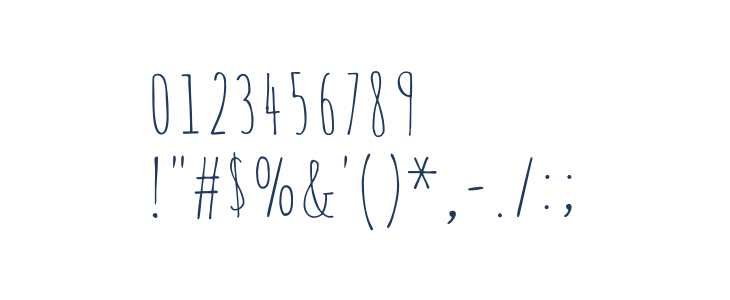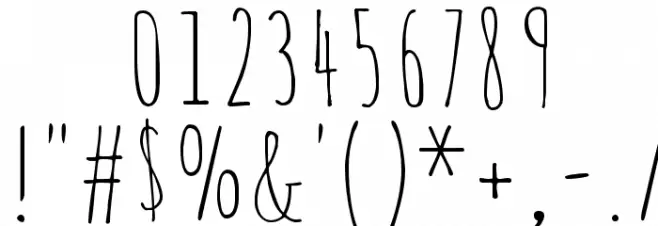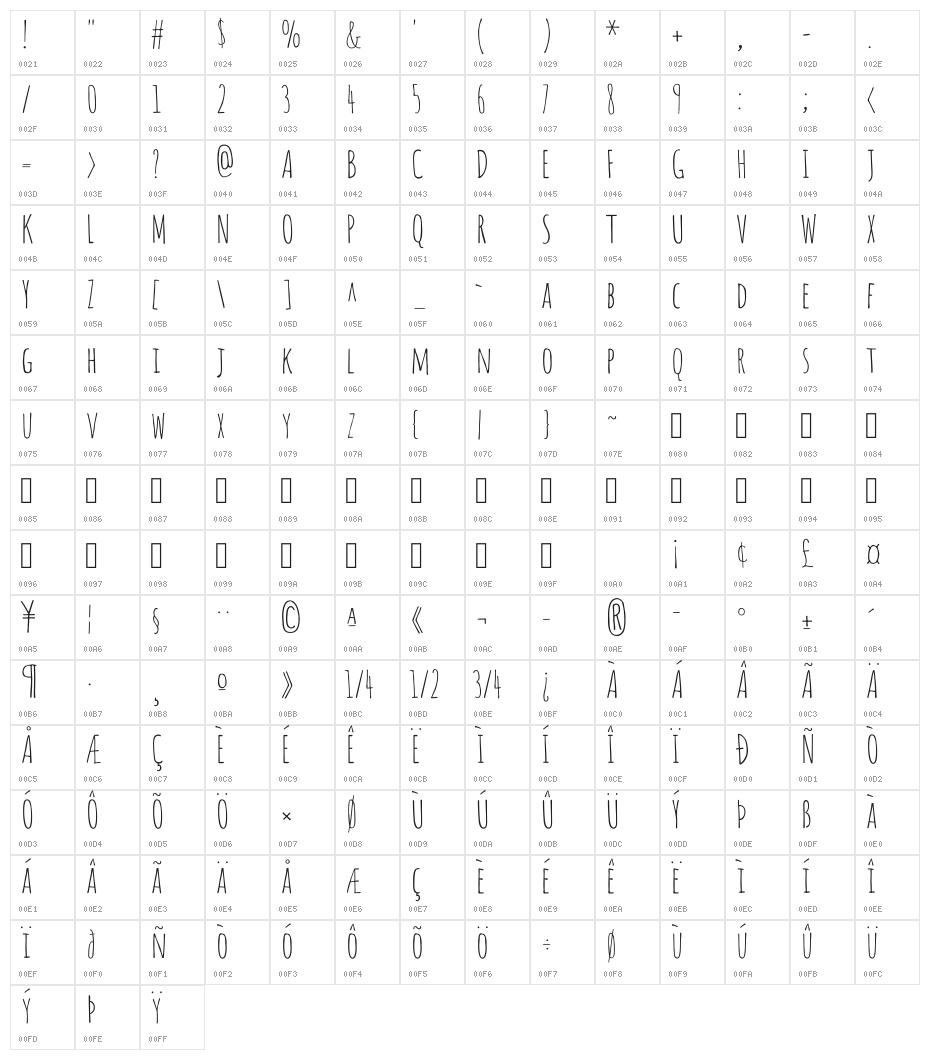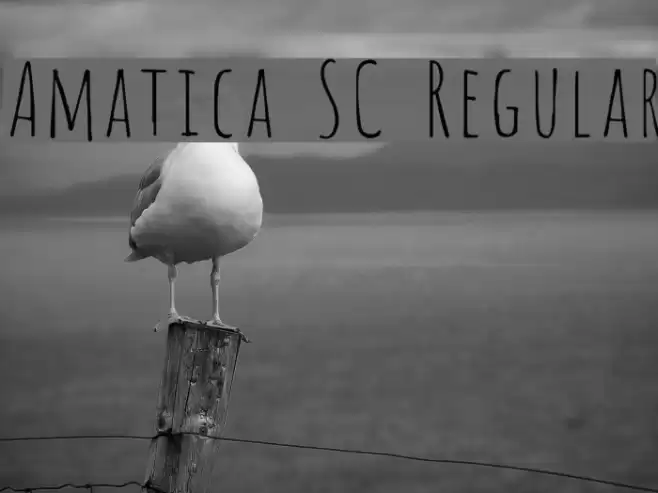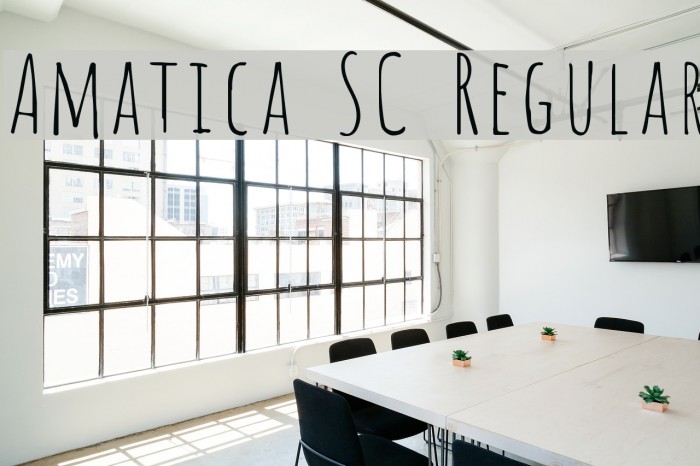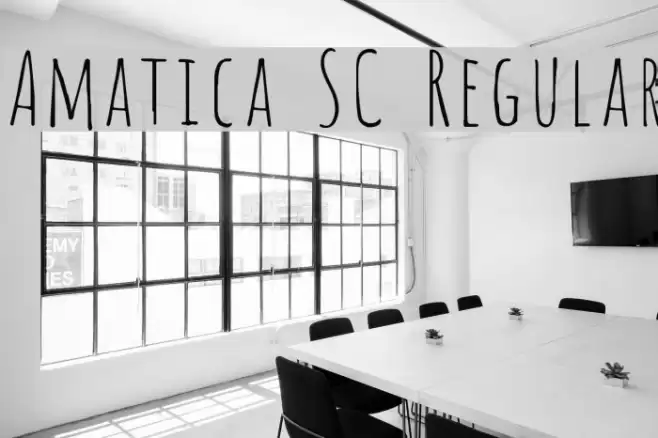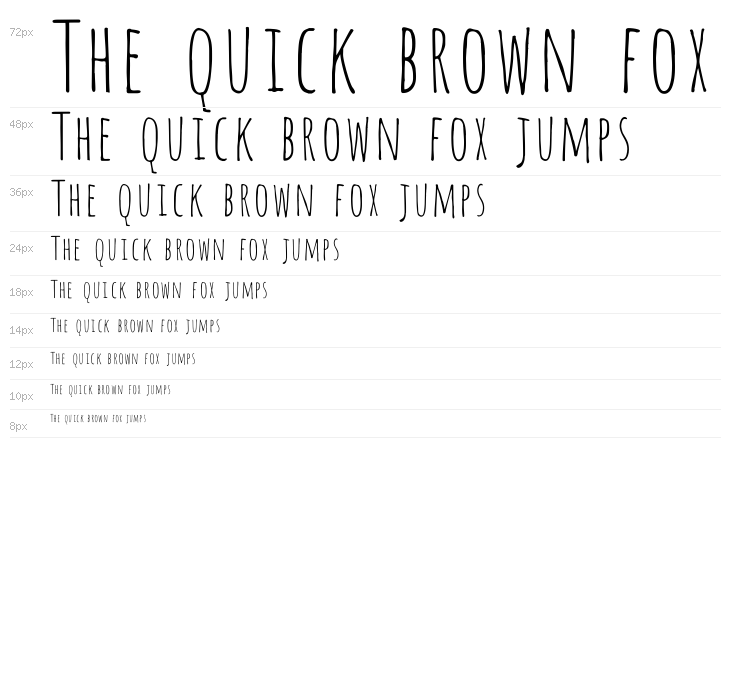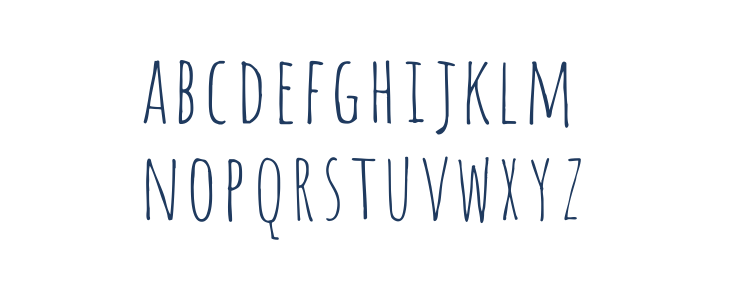
Amatica SC Regular Font
Amatica SC Regular Description
This font features a playful and informal style with a handwritten appearance. The characters are tall and narrow, giving a unique and quirky look. The strokes are uneven, adding to the casual and friendly feel. The uppercase and lowercase letters maintain a consistent style, with slightly varying stroke widths that enhance the hand-drawn effect. The numbers and special characters are designed to match the overall aesthetic, making it suitable for creative and informal projects.